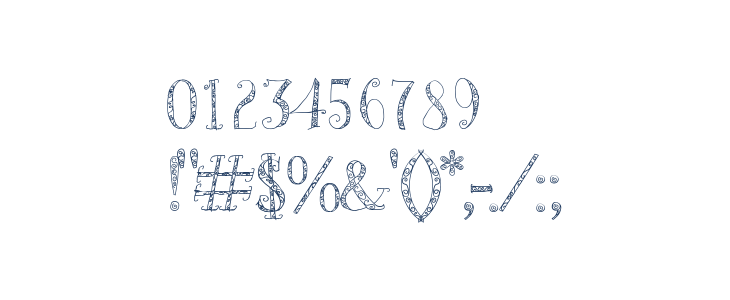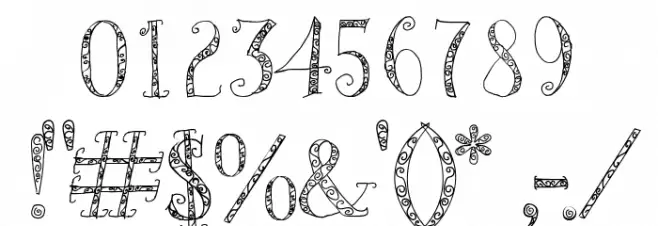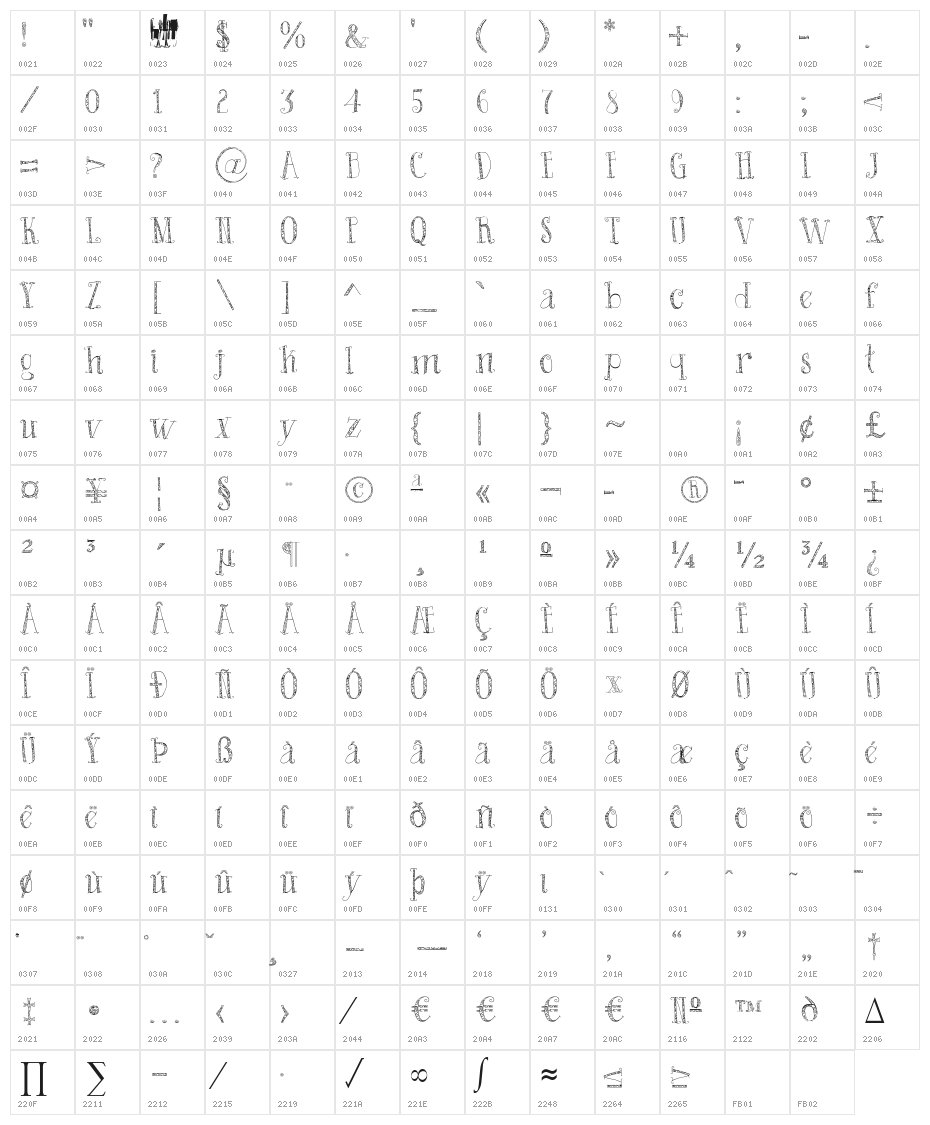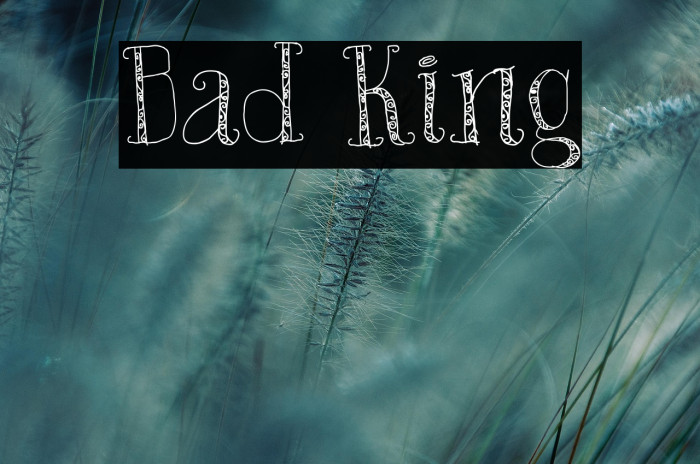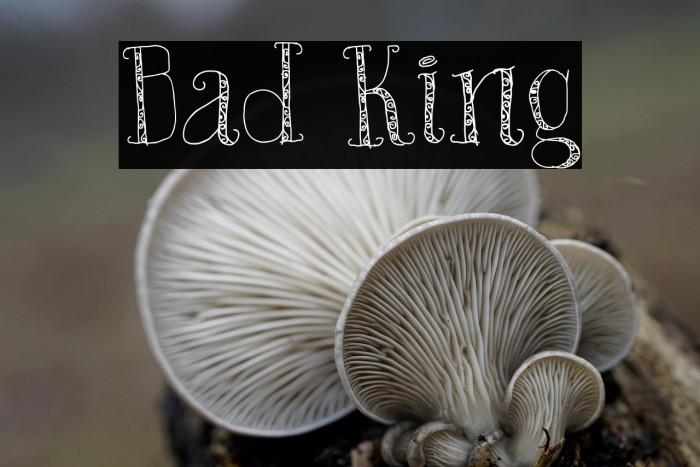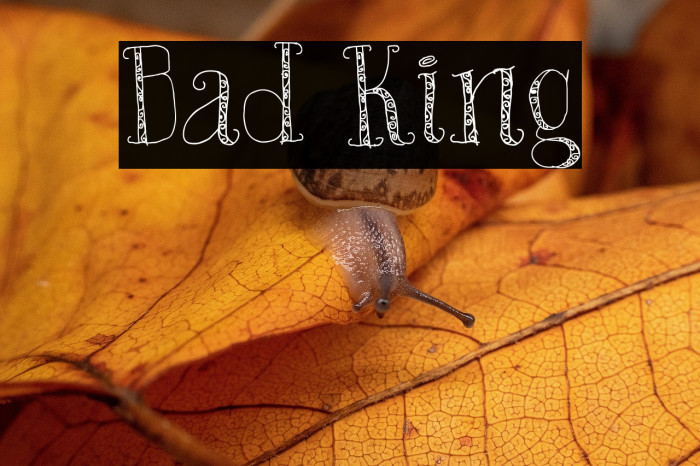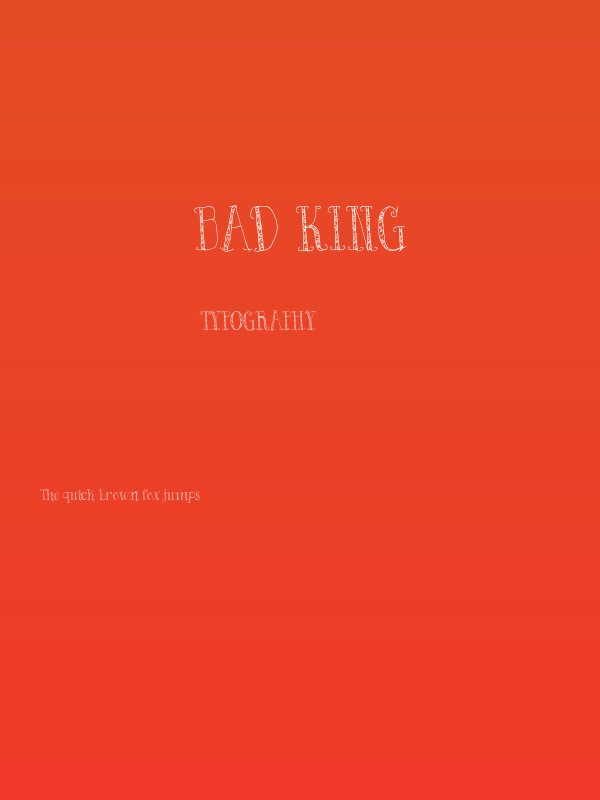
Bad King Font
Bad King Description
This font features a whimsical and decorative style, characterized by its intricate swirl patterns within each letter. The uppercase and lowercase letters maintain a consistent design, with tall, narrow forms and playful embellishments that give it a unique, artistic flair. The numerals and special characters follow the same ornate theme, making the font suitable for creative and eye-catching designs. Its distinctiveness lies in the detailed, hand-drawn aesthetic, which adds a touch of elegance and creativity to any project.